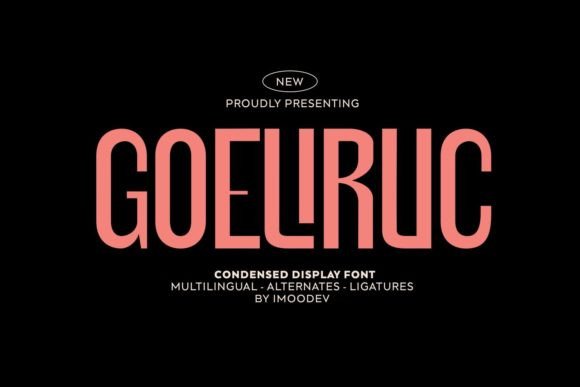
Unveil the Beauty of Elegance with Goeliruc Font: Your Timeless Companion for Exquisite Designs
In a world where visual aesthetics hold immense sway, Goeliruc Font emerges as a radiant beacon of elegance, inviting you to embark on a creative journey like no other. This modern and stylish display font, meticulously crafted by Imoodev, is the epitome of grace and sophistication, designed to elevate your projects to the highest echelons of artistry.
Step into a realm of breathtaking beauty, where Goeliruc's enchanting curves and delicate strokes weave a tapestry of visual harmony. Its refined lines and impeccable balance evoke a sense of timeless elegance, making it the perfect choice for wedding invitations, branding projects, and any endeavor that demands an air of sophistication.
Immerse yourself in the versatility of Goeliruc, a font that effortlessly adapts to a multitude of design styles. Its inherent charm shines through in both digital and print applications, transforming your creations into masterpieces that captivate and inspire. Whether you're crafting a heartfelt wedding invitation, designing a sleek logo, or creating eye-catching social media graphics, Goeliruc empowers you to leave a lasting impression.
Indulge in the emotional resonance that Goeliruc effortlessly evokes. Its graceful presence adds a touch of warmth and intimacy to your designs, creating an emotional connection that resonates with your audience. Let Goeliruc be your creative ally, transforming ordinary words into poignant messages that touch hearts and leave an indelible mark.
Experience the transformative power of Goeliruc Font and witness the remarkable evolution of your creative projects. Its timeless elegance and versatile charm will elevate your designs to new heights, leaving your audience spellbound. Embrace the artistry of Goeliruc and embark on a journey of visual excellence today!